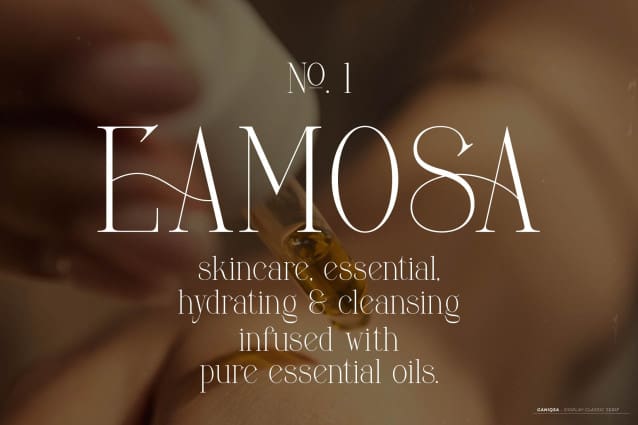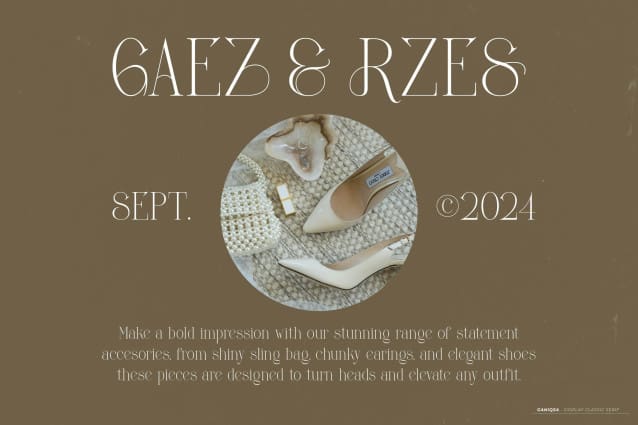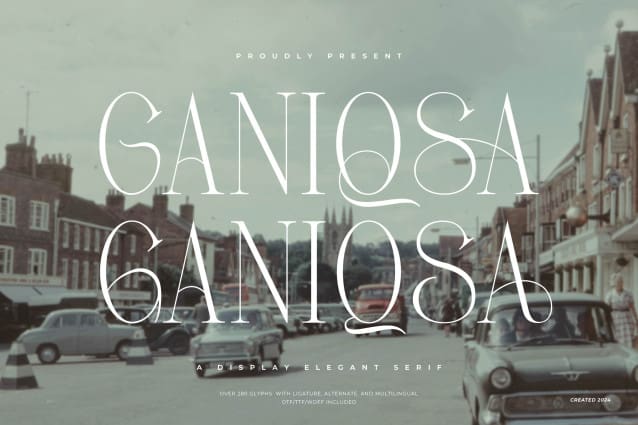
Ganiqsa Font
Ganiqsa Font | Display Elegant Serif, from Denustudios, suitable for any projects such as: logos, branding projects, homeware designs, product packaging, mugs, quotes, posters, shopping bags, t-shirts, book covers, name card, invitation cards, greeting cards, label, photography, watermark, special events, and all your other lovely projects that need a Display Elegant Serif taste.